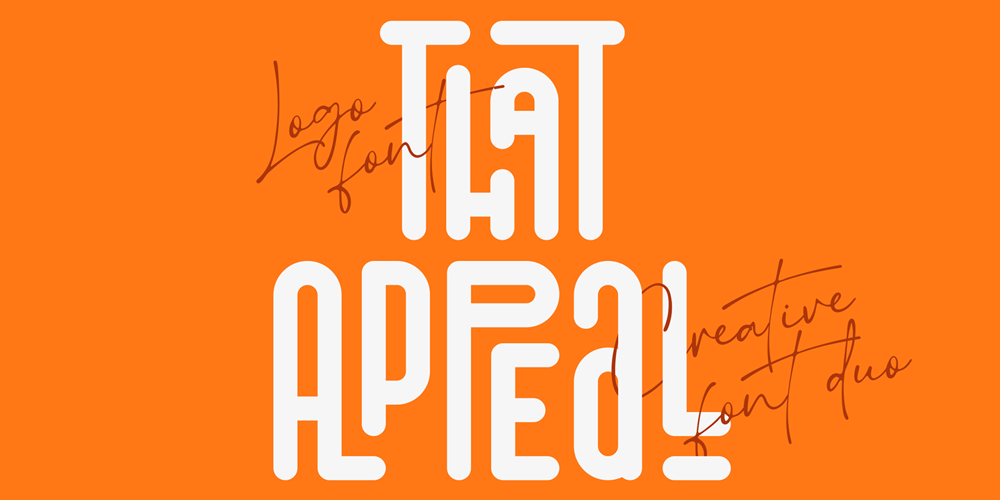
That Appeal
That Appeal font
That Appeal Font Family was designed by Vladimir Fedotov, Plamen Petrov and published by VP Creative Shop. That Appeal contains 2 styles and family package options. Dive into the world of typography with “That Appeal”, a striking font duo that brilliantly combines versatility and style. This unique pairing features two complementary typefaces, each with its own charm and functionality, making it a must-have for your creative toolkit.